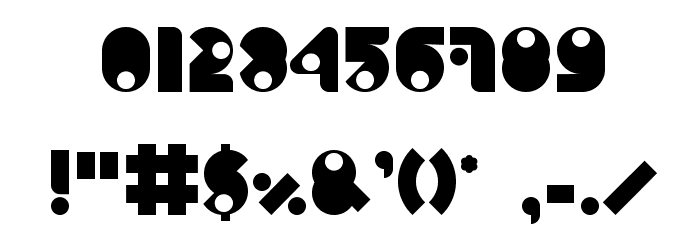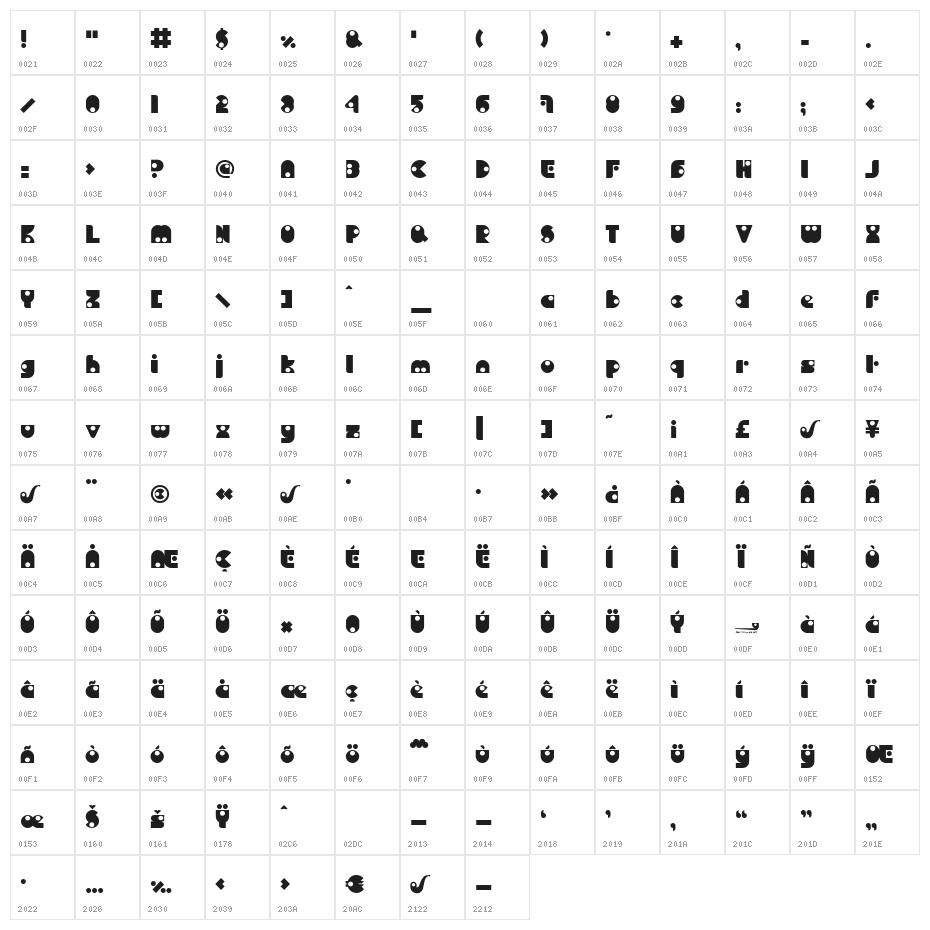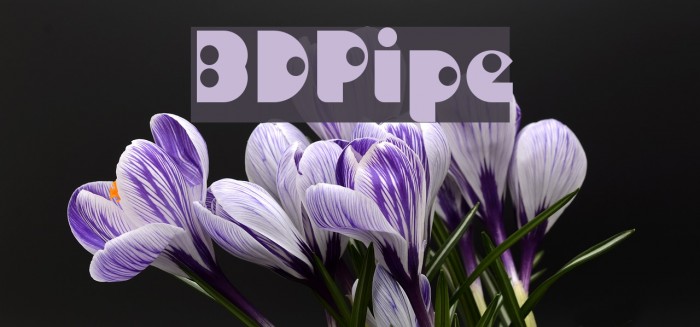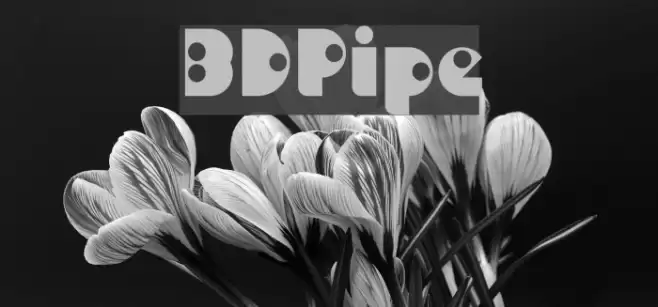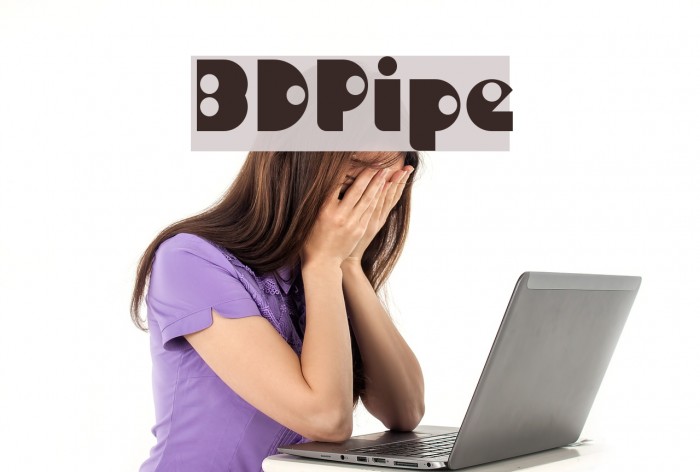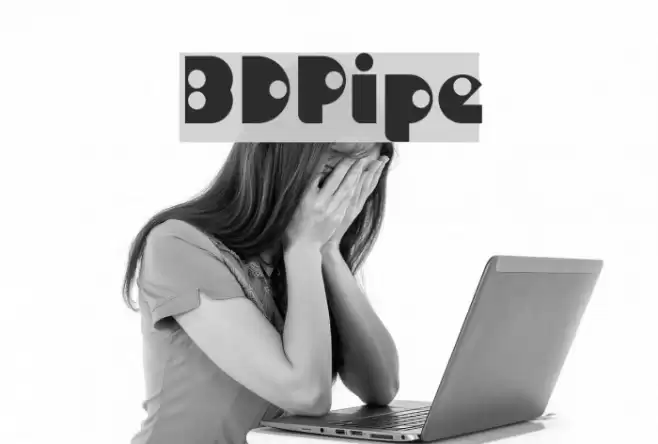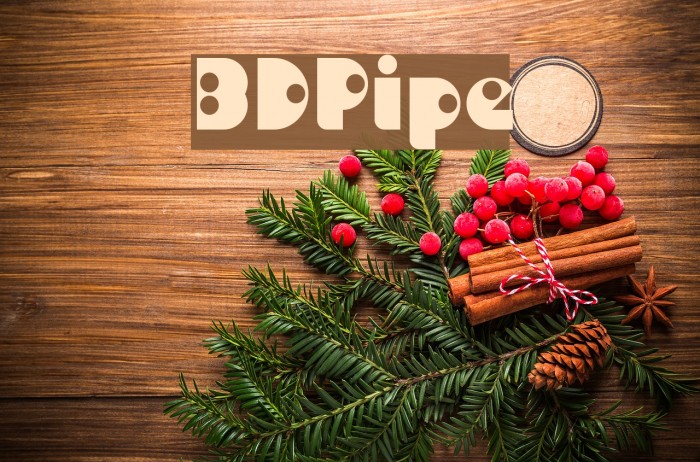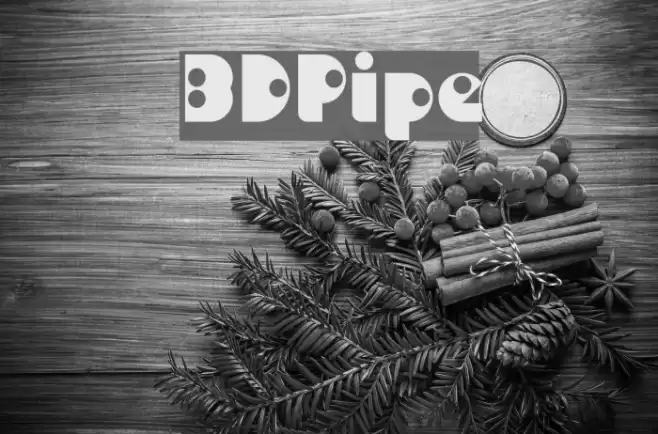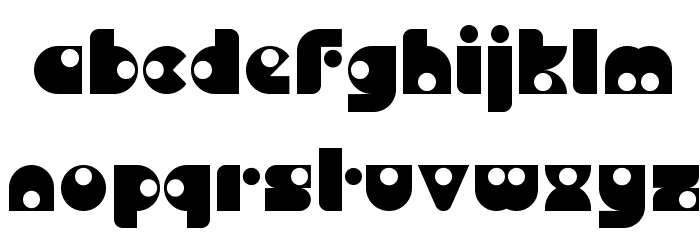
BDPipe Font
BDPipe Description
This font features a bold and geometric design, characterized by its use of circular cutouts within each character. The letters are constructed with solid, thick strokes that create a strong visual impact. The circular elements add a playful and modern touch, making the font stand out. The uppercase and lowercase letters maintain a consistent style, with the lowercase mirroring the boldness of the uppercase. Numbers and special characters follow the same design principles, ensuring uniformity across all glyphs. This font is ideal for projects that require a distinctive and eye-catching typeface.
| Proposed Projects | Ideal for branding, posters, headlines, and any design needing a bold statement. |